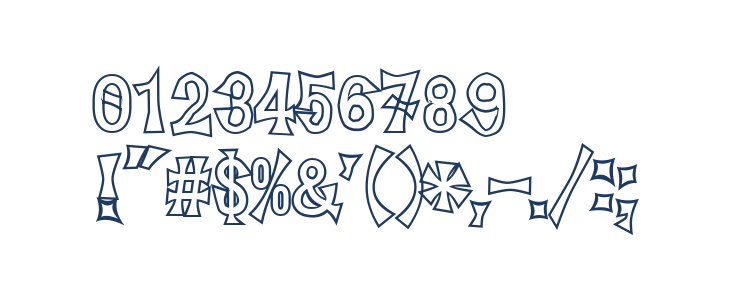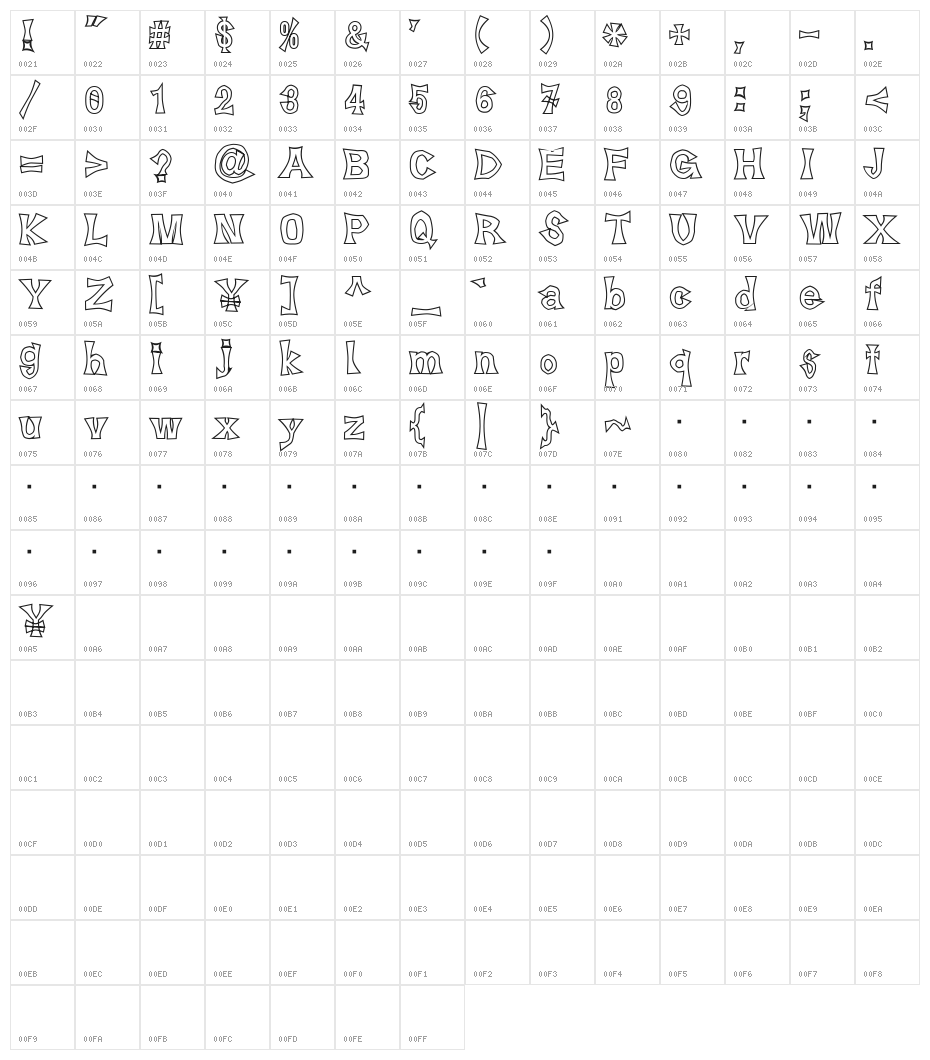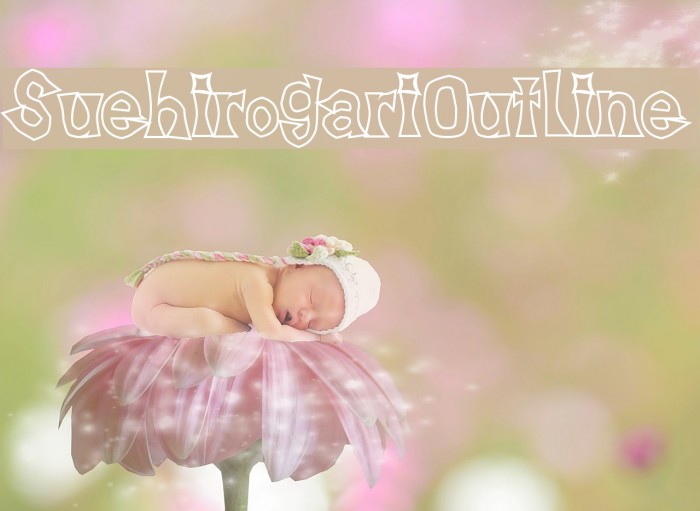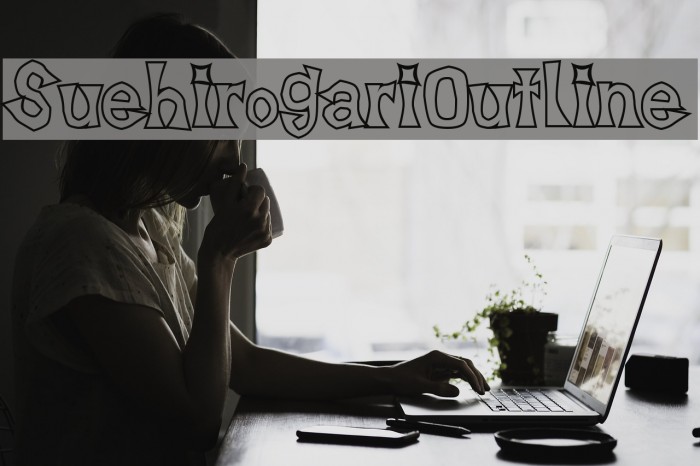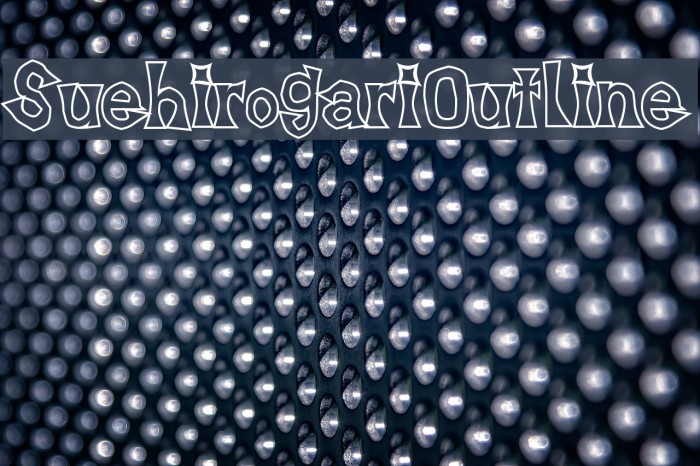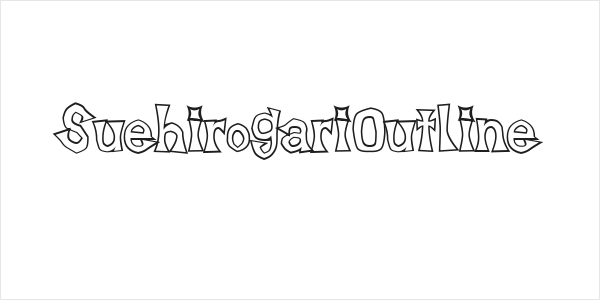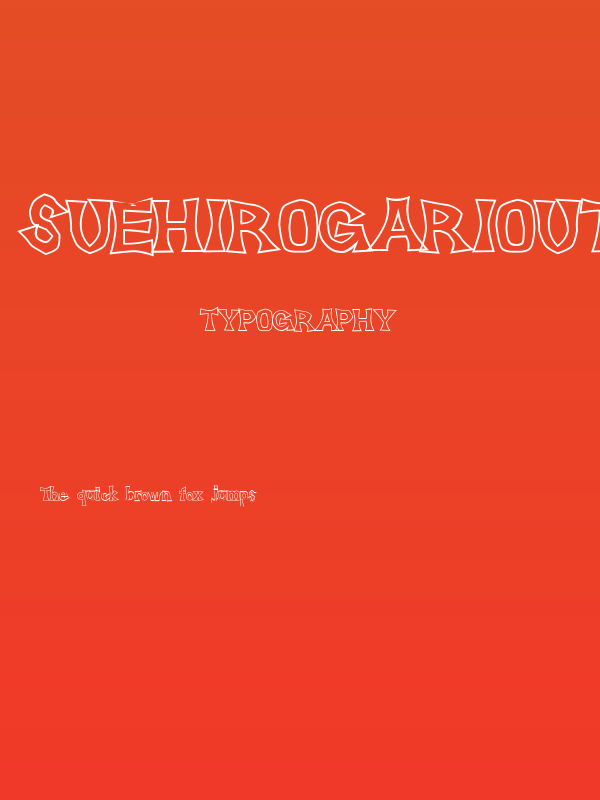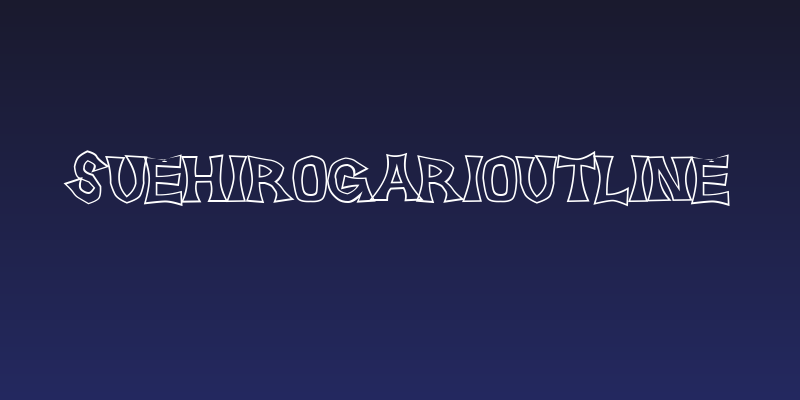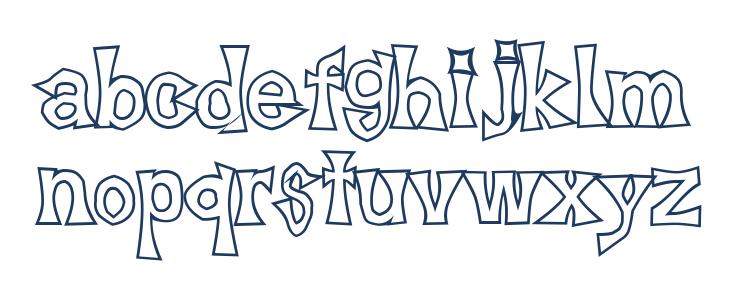
SuehirogariOutline Font
SuehirogariOutline Description
This font features a bold, outlined style with a playful and artistic flair. Each character is uniquely designed with exaggerated curves and angles, giving it a dynamic and energetic appearance. The uppercase and lowercase letters maintain a consistent style, with the lowercase characters mirroring the boldness of the uppercase. Numbers and special characters follow the same design principles, ensuring a cohesive look across all elements. The font's outline adds a layer of depth, making it stand out in any design. Its distinctive style is both eye-catching and versatile, suitable for a variety of creative projects.
| Proposed Projects | Ideal for posters, album covers, children's books, and creative branding projects. |